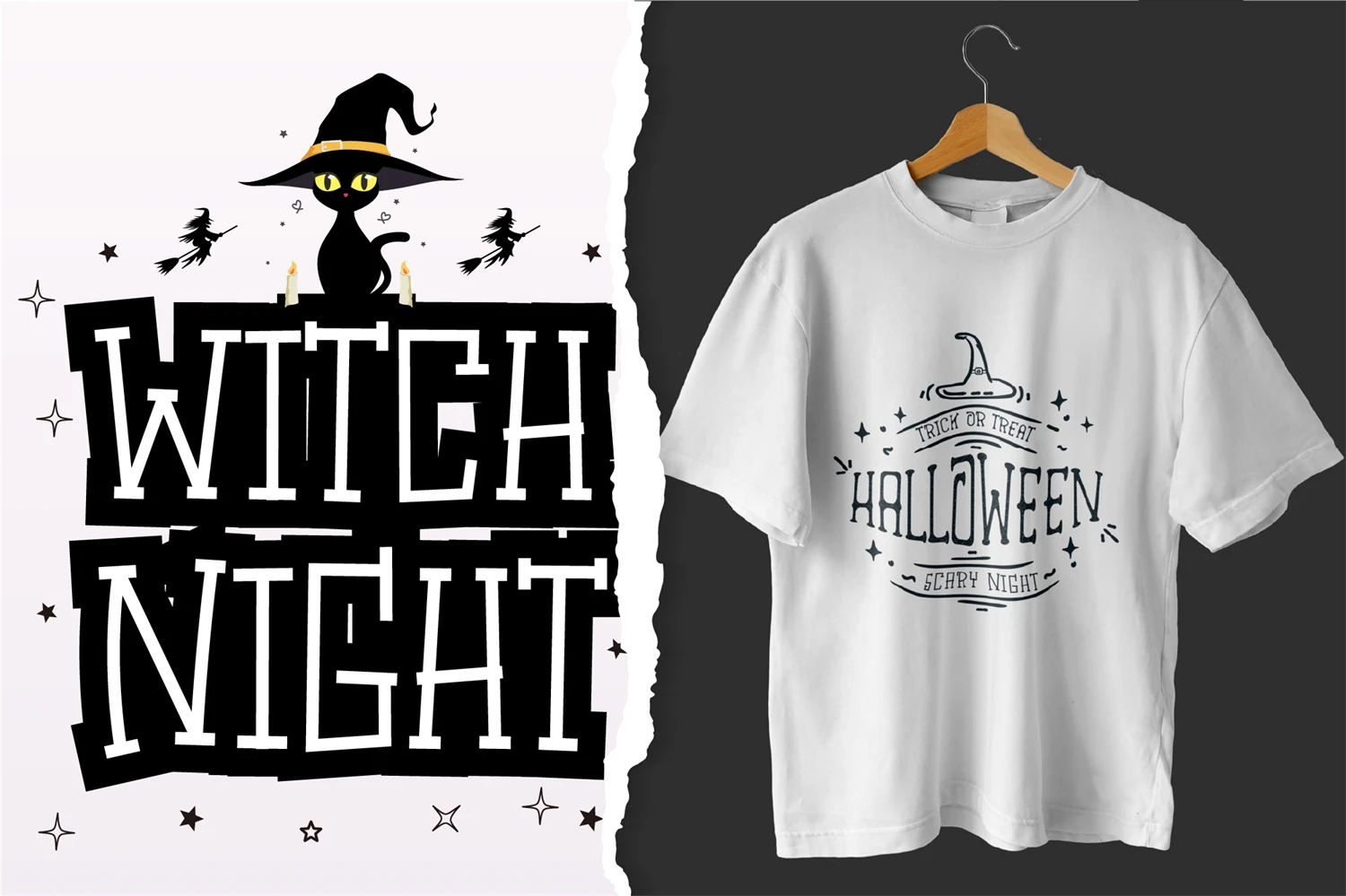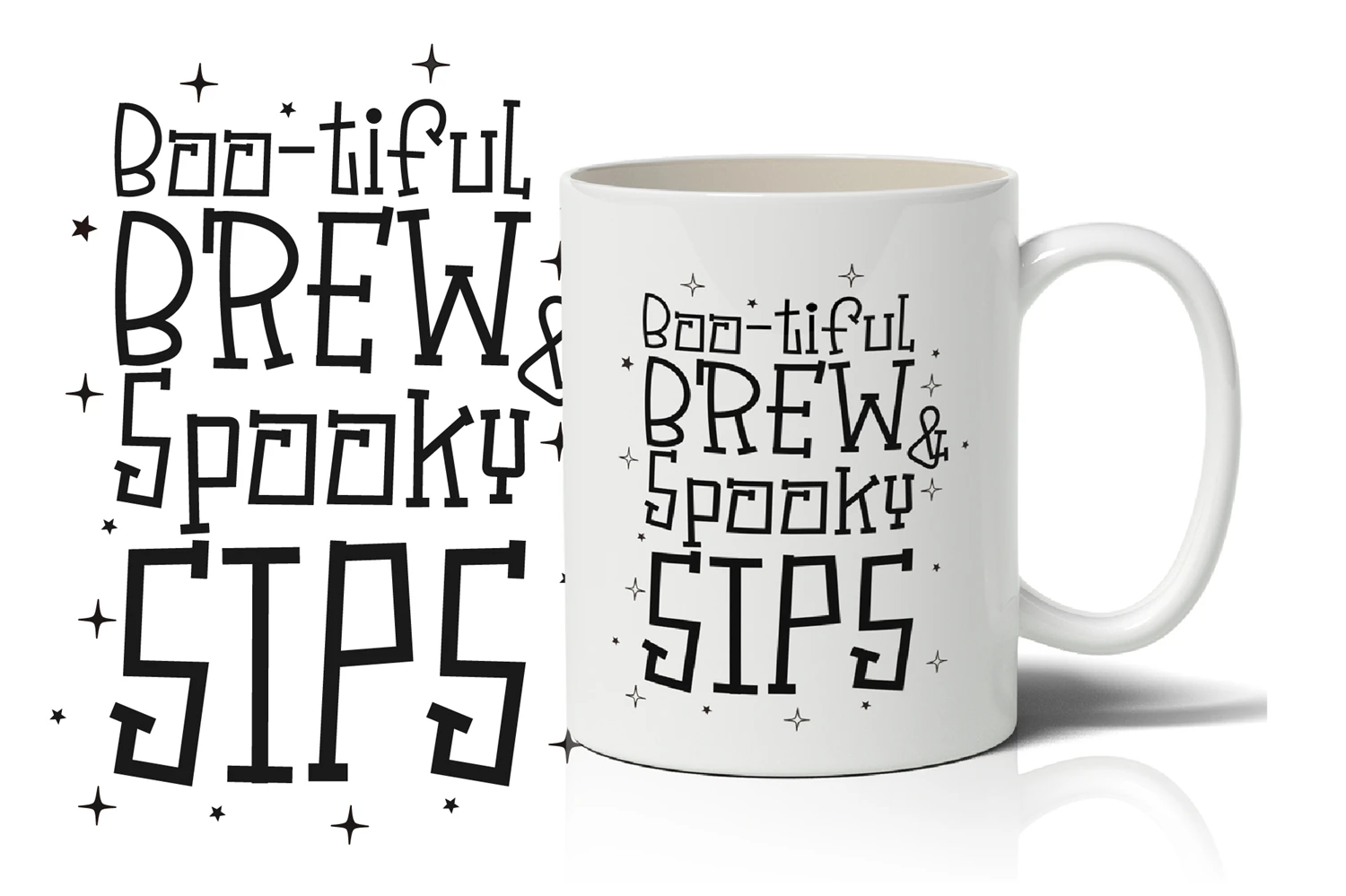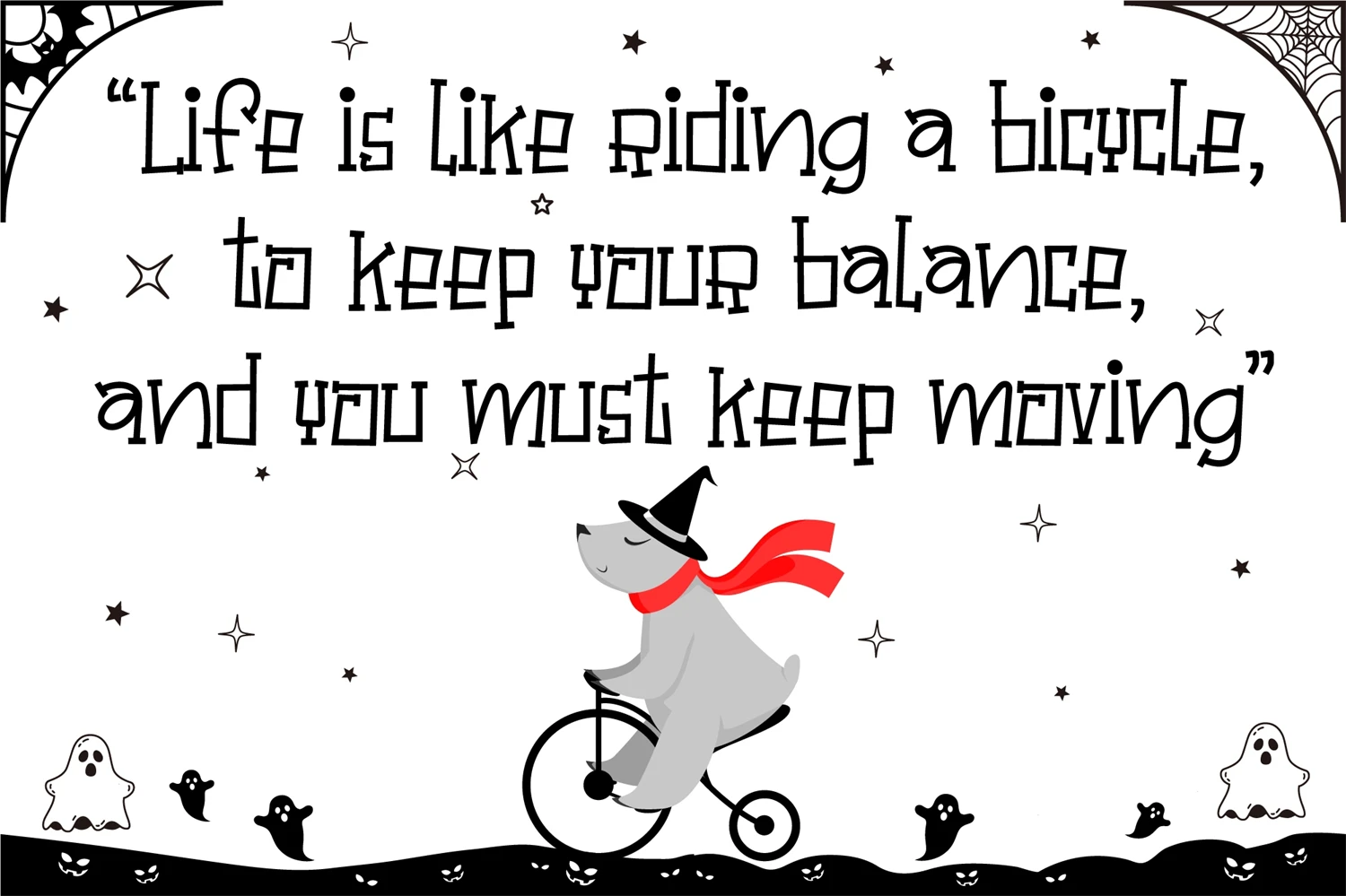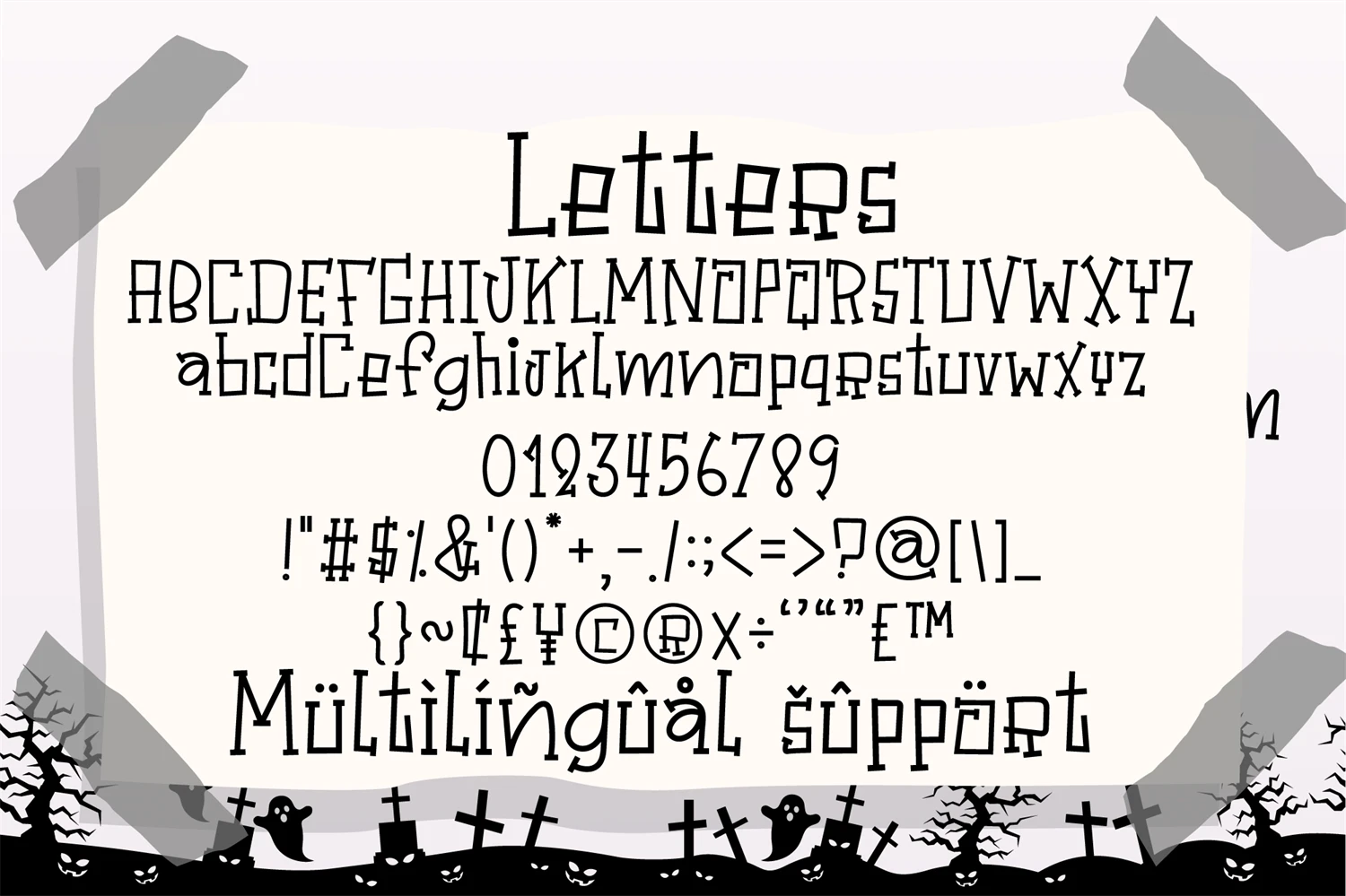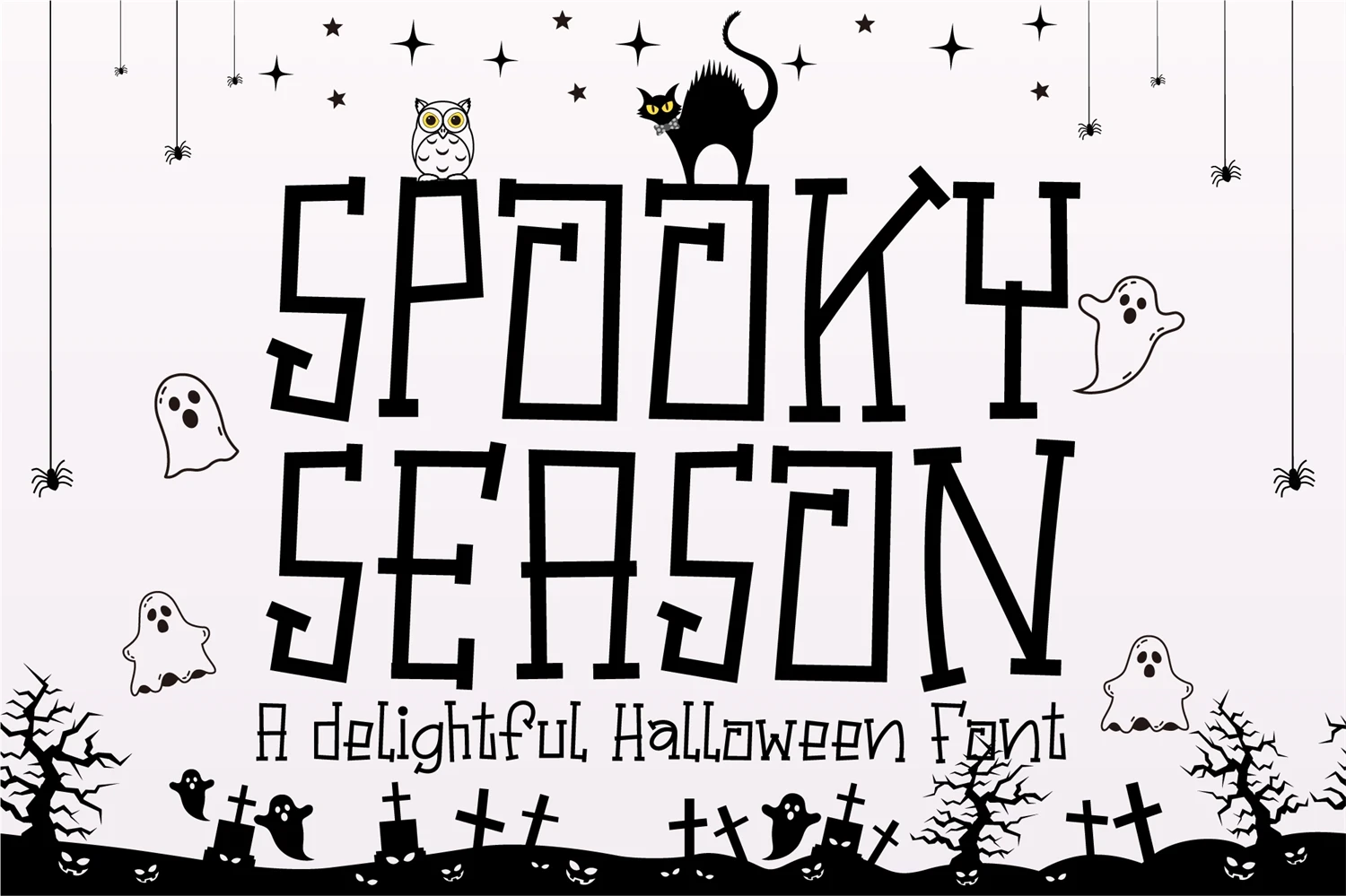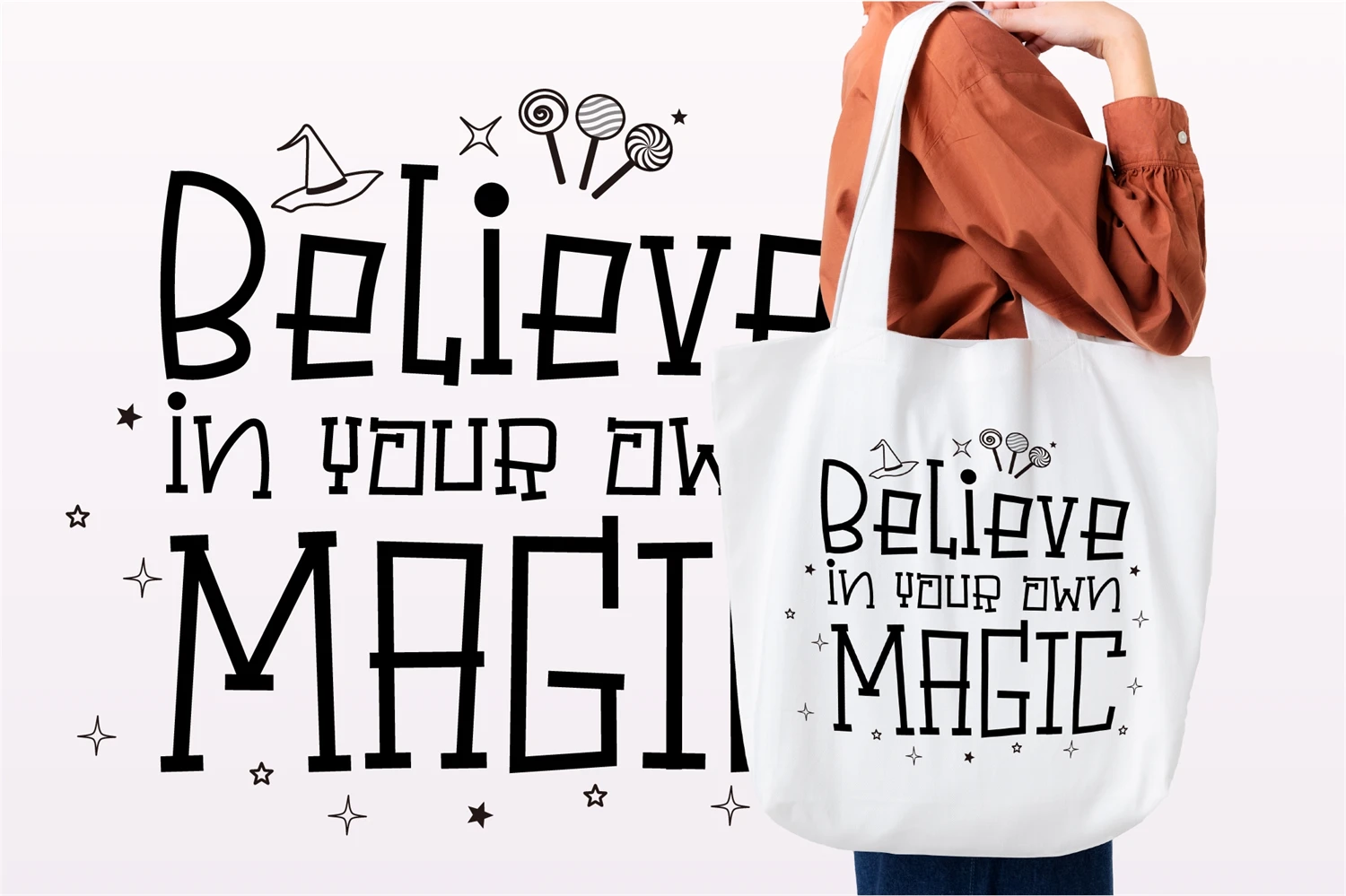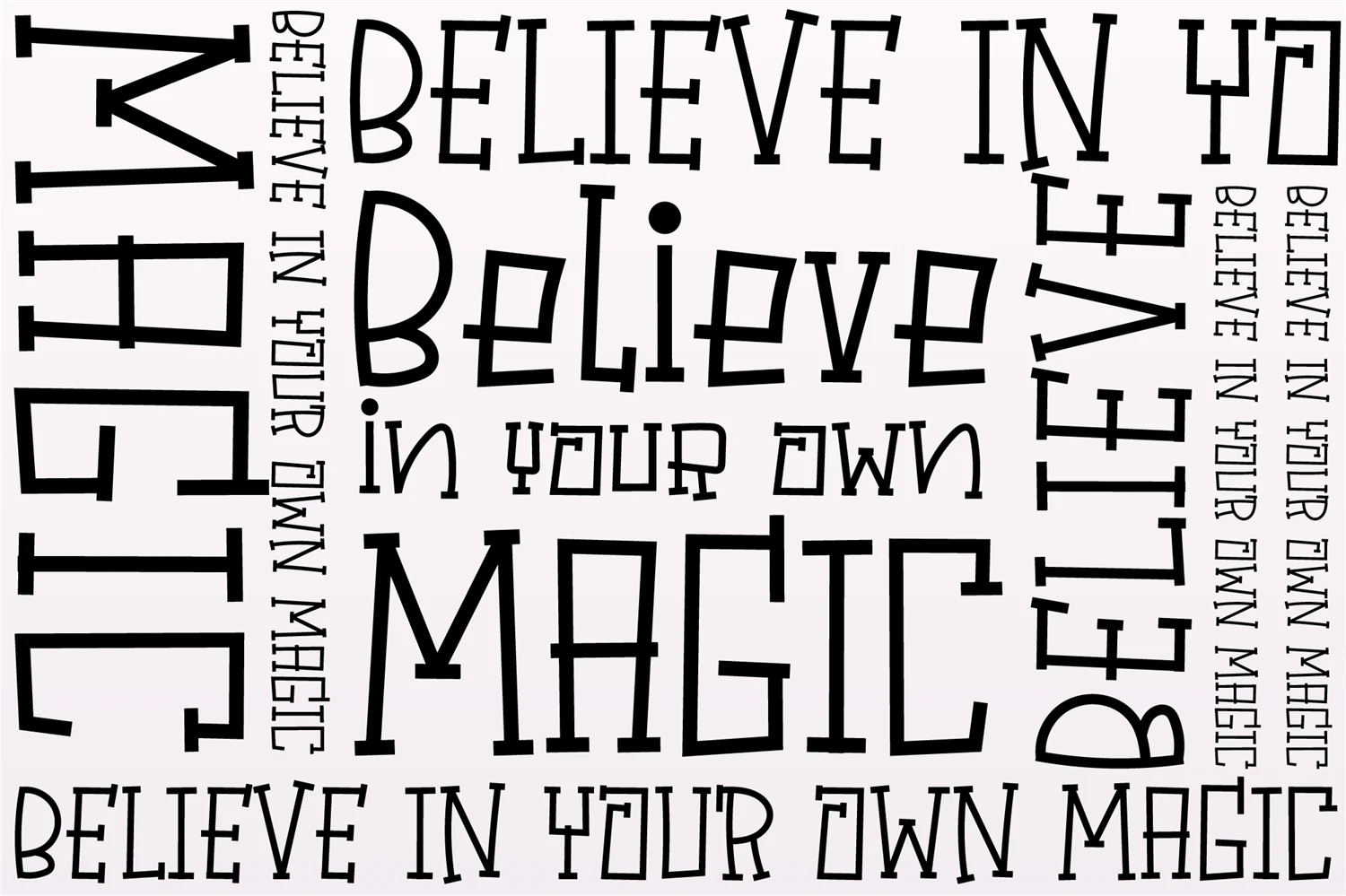
Spooky Season is a bewitching and delightful Halloween Display font that brings a playful and cute twist to the spookiest time of the year. With its charming and quirky design, this font captures the essence of Halloween with friendly ghosts, adorable pumpkins, and mischievous bats. Whether youre creating party invitations, spooky decorations, or fun social media graphics, Spooky Season will add a touch of enchantment to your designs. Embrace the magic of Halloween with this cute and versatile font thats perfect for all your ghoulishly delightful projects.